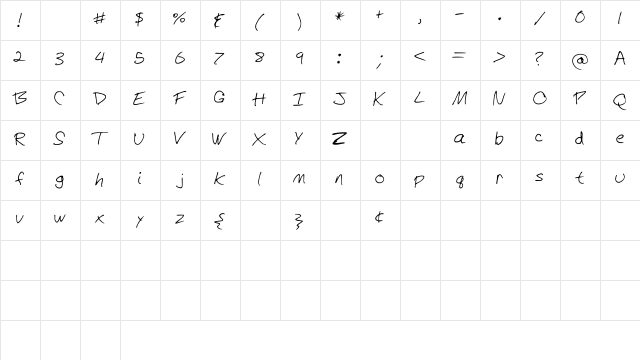
Hi_There Medium
Design Context for Hi_There Typeface
Hi_There is a composed and adaptable typeface that performs quietly and consistently across a wide range of design contexts.